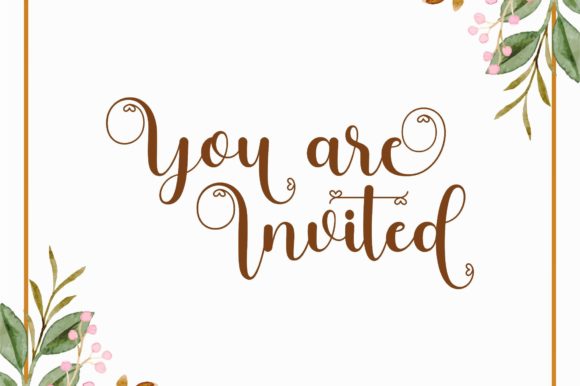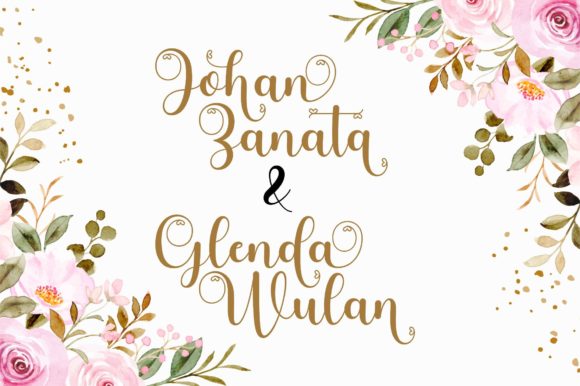
Cantika Font
db-ku.com - Script & Handwritten -- Cantika is romantic, cute, and bouncy script font with a romantic touch. This font is so perfect to be used for many designs, such as wedding invitation, greeting card, social media quotes, branding, logo, and many more.